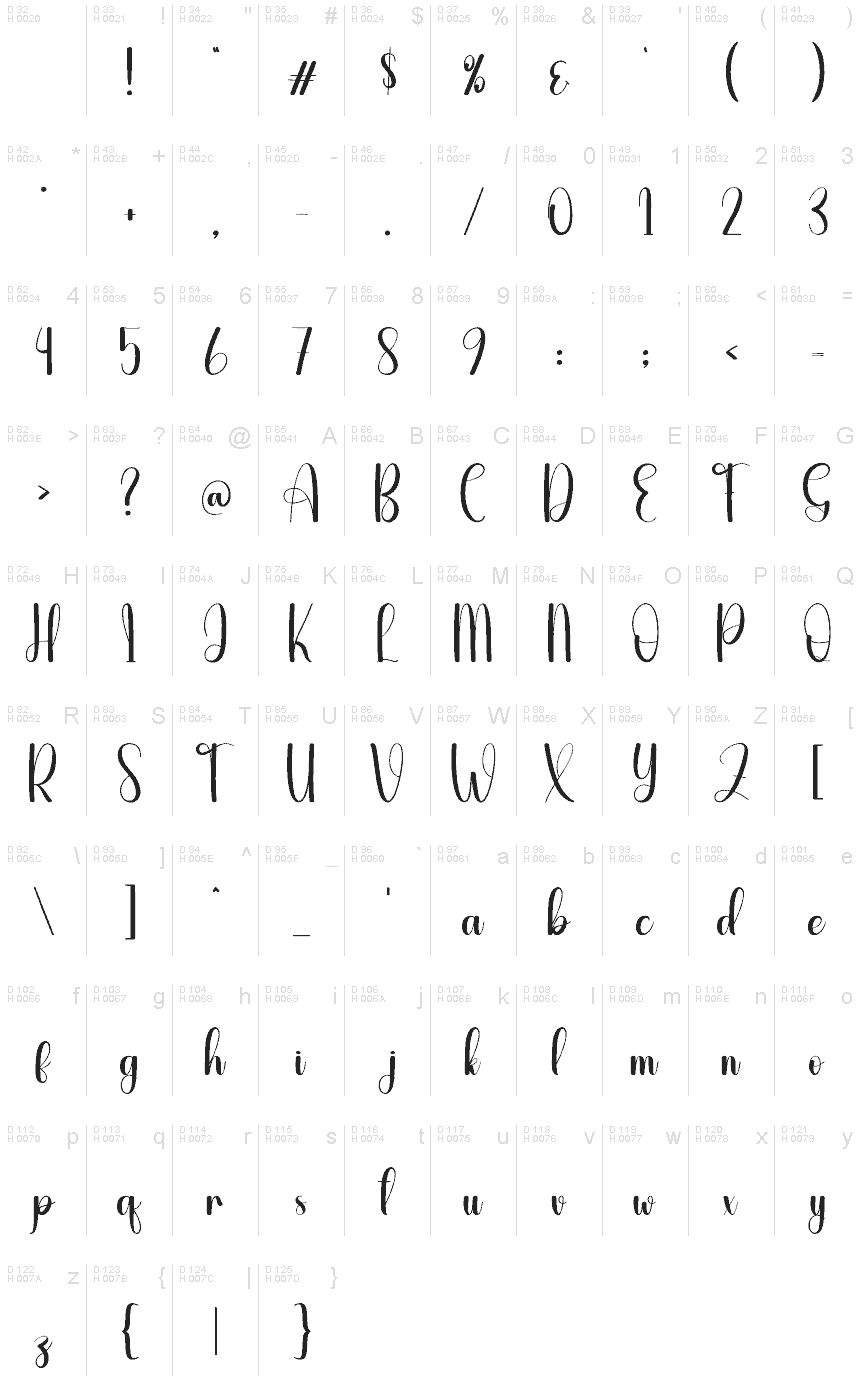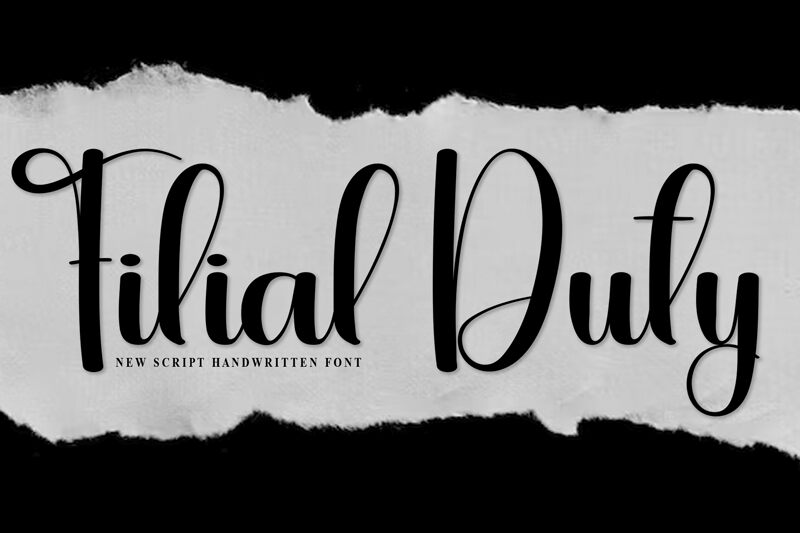
Filial Duty
Filial Duty font, designed by Scratchones, is a free calligraphy font with an elegant style and condensed letters. Its flowing and graceful appearance feels like a signature that immediately gives any project both volume and harmony. The reader will enjoy being greeted by this carefully-crafted script font that conveys respect in every swirl for a chic result.
Filial Duty supports creative designs of all sorts since it can be featured on posters, stationery items, book covers, websites, blogs, or apps. Pick it for branding designs to give the identity of your brand a special look never seen before.